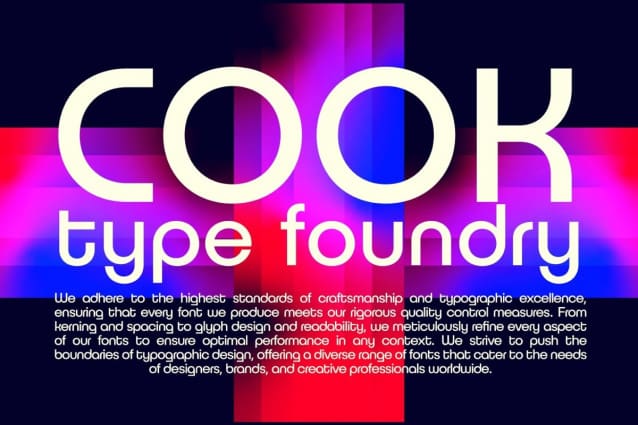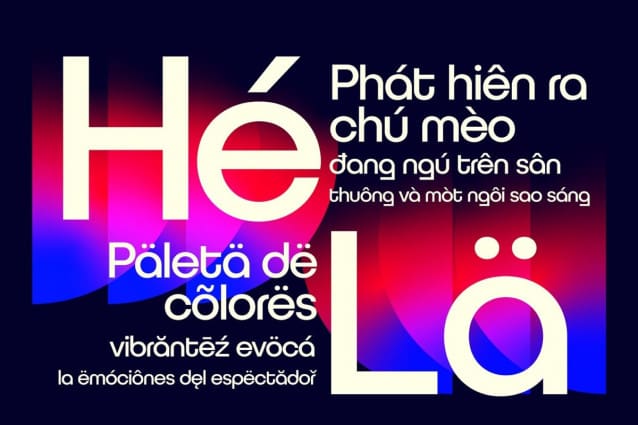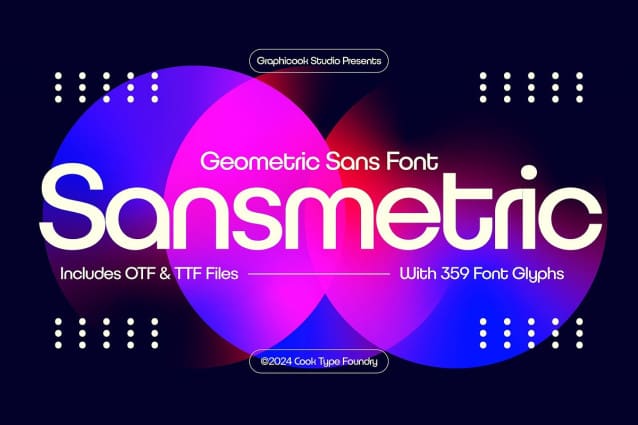
Sansmetric Font
Sansmetric Font, blends sans serif and geometric styles into a clean design. Its versatility makes it perfect for any design project.
Sansmetric is perfect for headlines, logotypes, magazines, packaging, quotes, movies, games, cover albums, book covers, and flyers, it’s a perfect solution for creating eye-catching designs that stand out in any context.